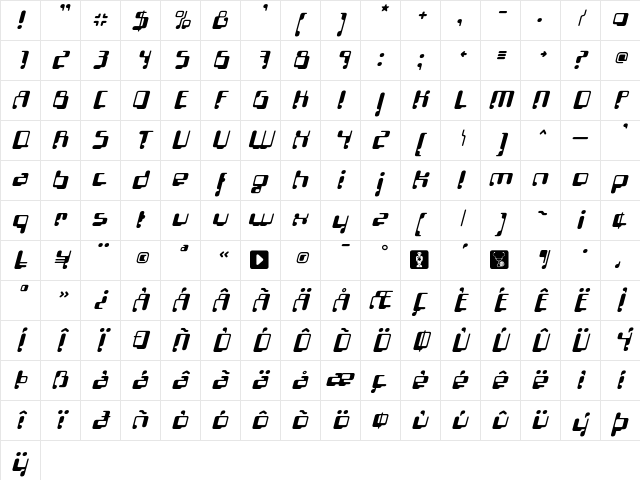
Localizer is a composed and adaptable typeface that performs quietly and consistently across a wide range of design contexts. The slanted form adds forward momentum and visual energy.
Pro Tip: Use Localizer for emphasis, pull quotes, and subheadings where its slanted energy can add rhythm to the layout.